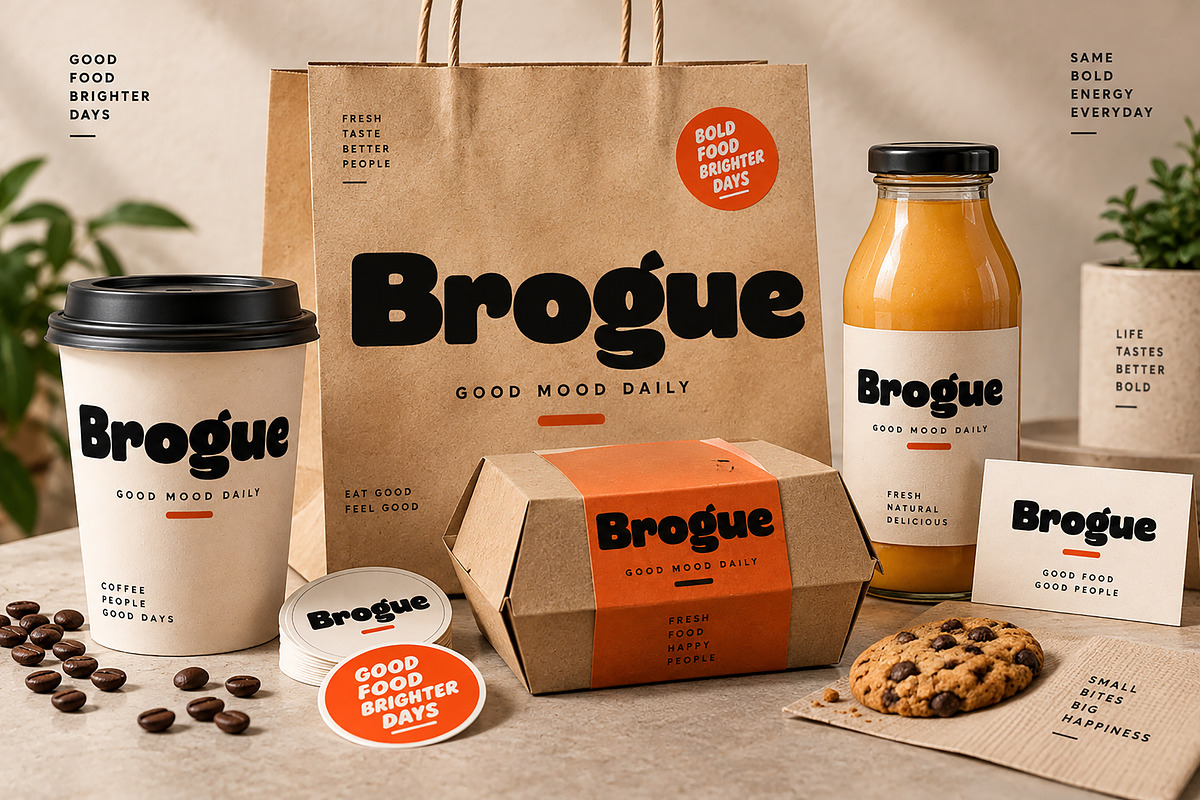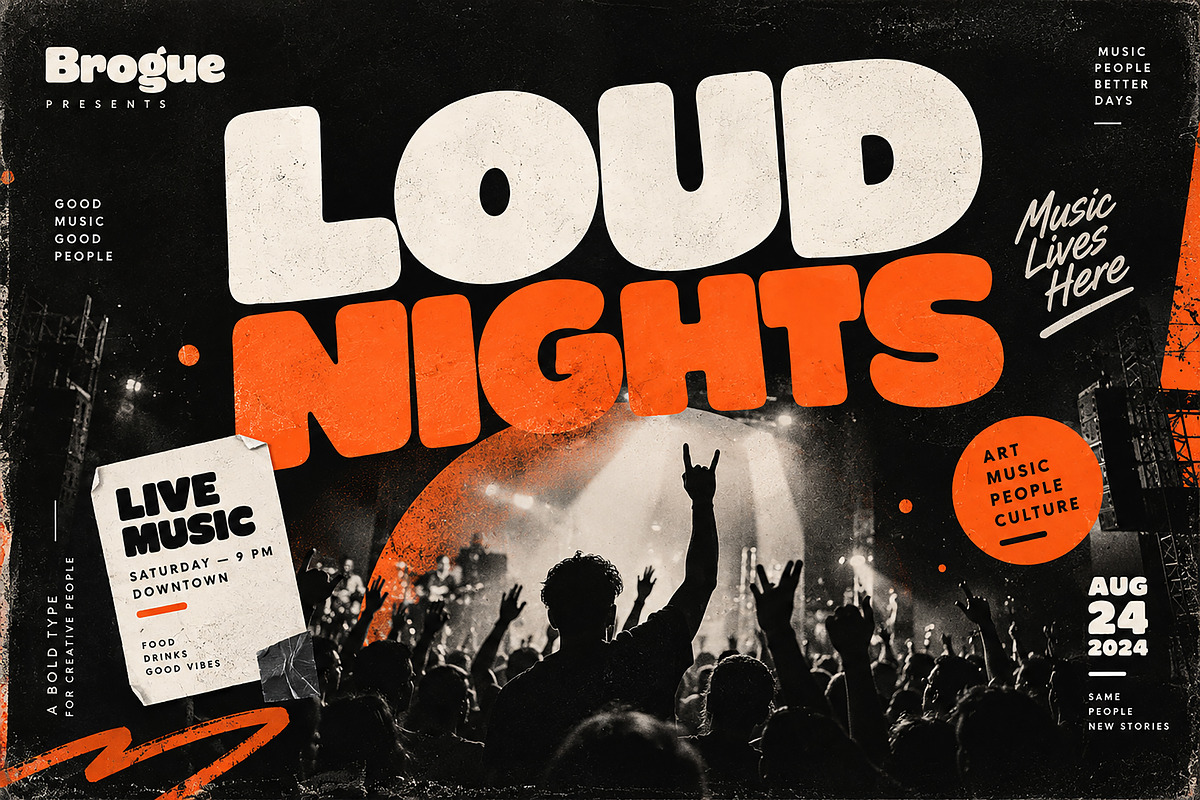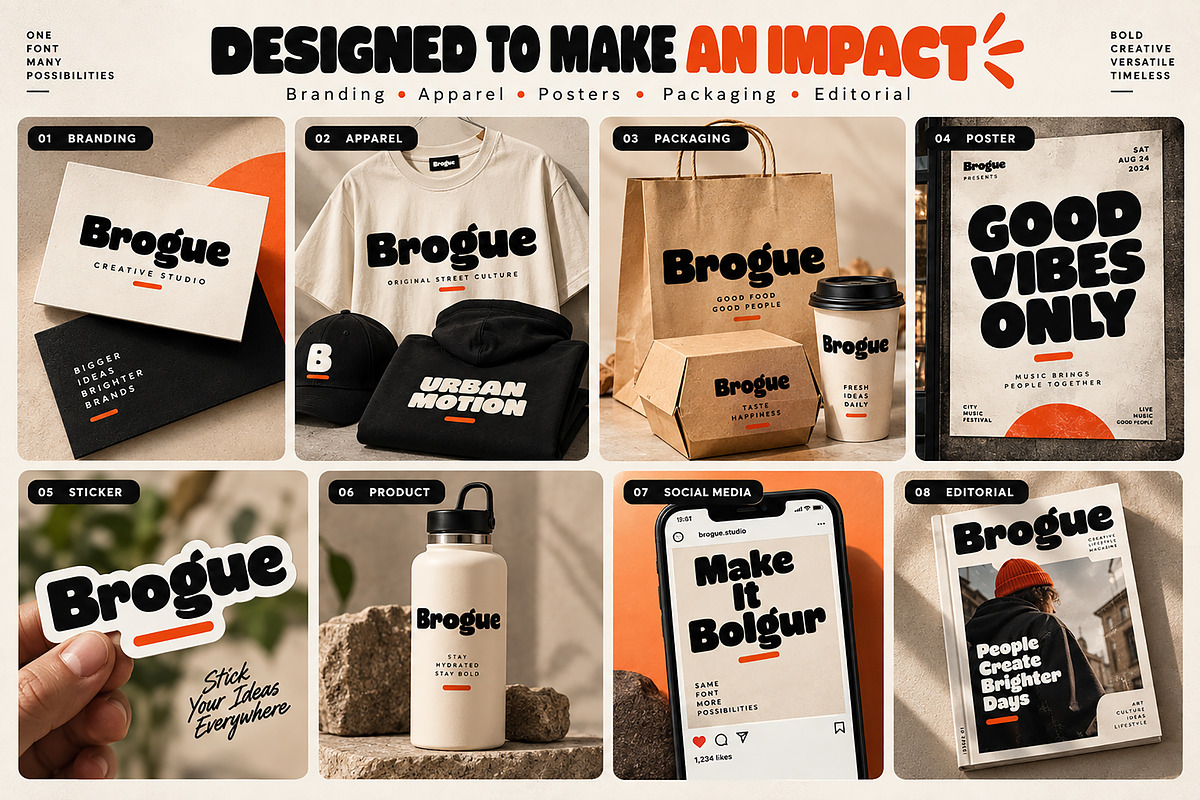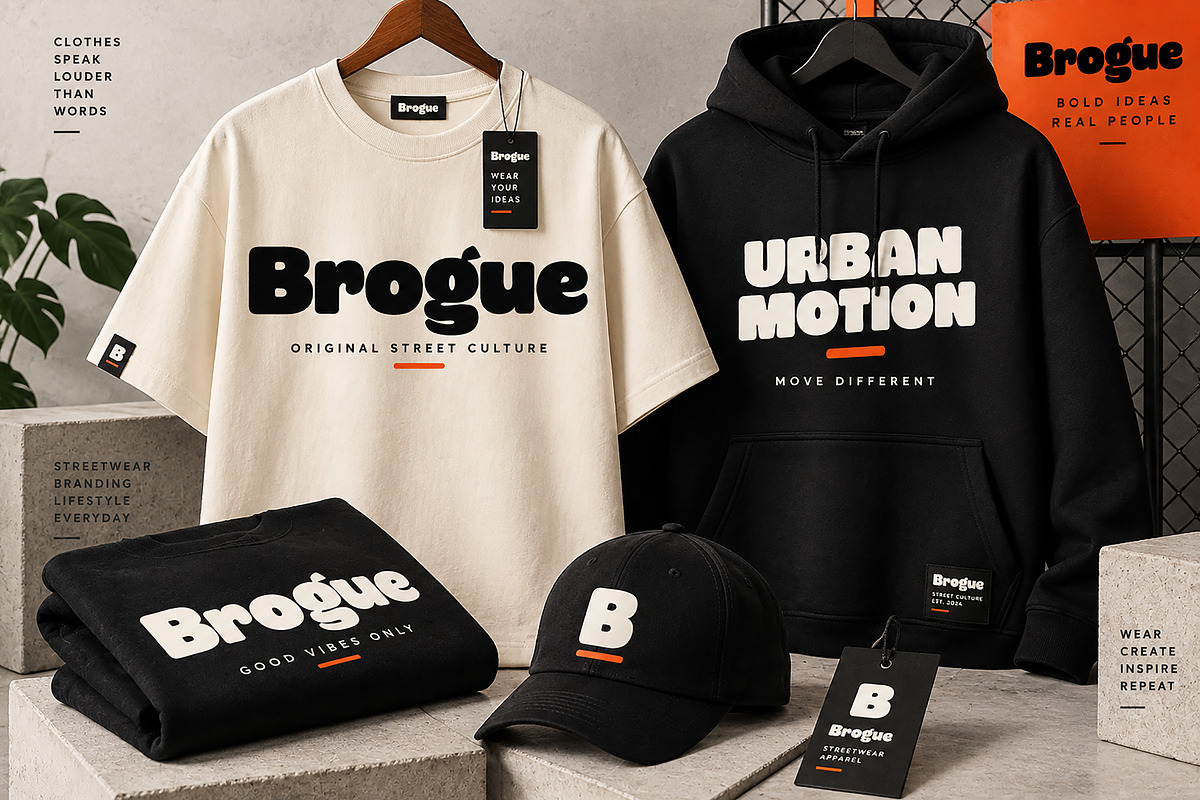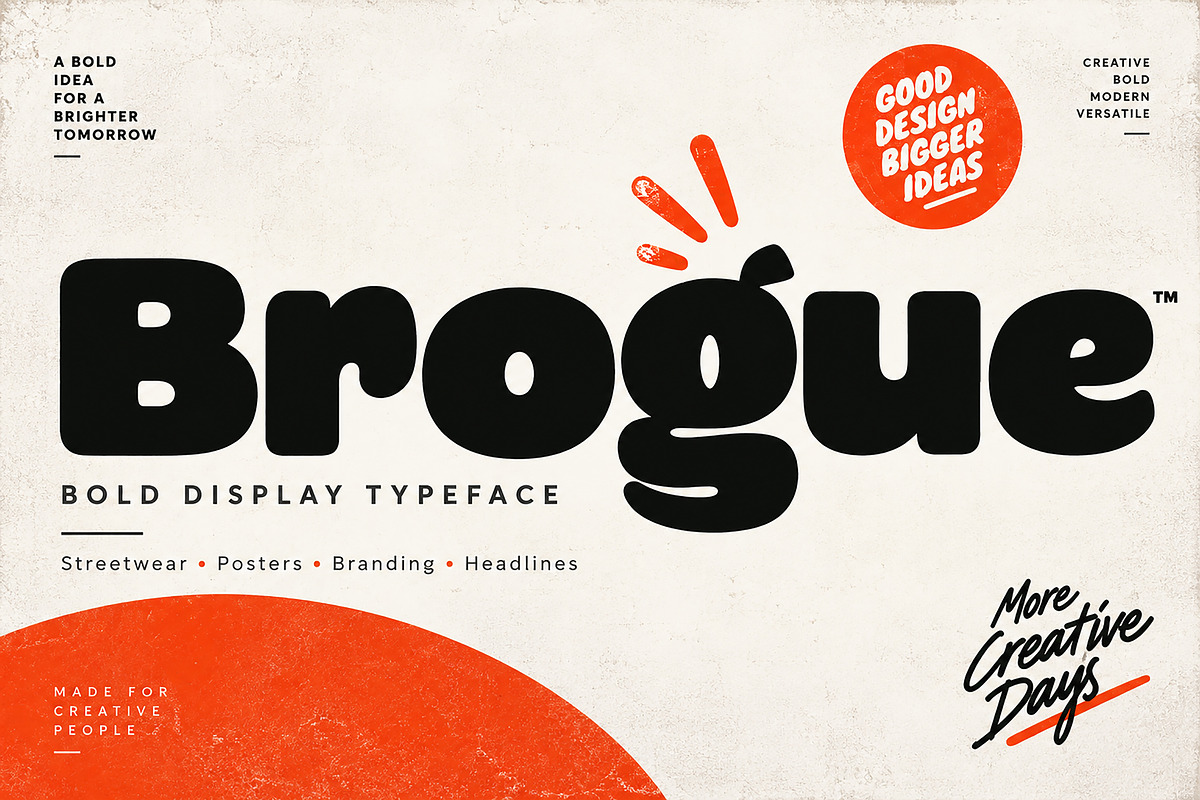
Brogue _ Bold • Chunky • Display
Brogue is a bold, chunky display typeface designed to make your typography instantly stand out. With its heavy rounded forms, playful curves, and distinctive character, Brogue brings a strong contemporary personality to headlines, branding, posters, apparel, packaging, and creative advertising.
Its eye-catching display style works especially well for projects that need a confident, energetic, and memorable visual identity. Use Brogue for streetwear graphics, logo concepts, music posters, event artwork, product packaging, stickers, social media designs, editorial covers, merchandise, and promotional campaigns.
Brogue is designed to be highly impactful at large sizes, making it an excellent choice for bold headlines and attention-grabbing typography.
Logo & Brand Identity
Streetwear & Apparel
T-Shirts & Hoodies
Posters & Flyers
Music & Event Graphics
Product Labels
Stickers & Merchandise
Editorial Design
Advertising & Promotional Materials
Creative Headlines
Album & Cover Artwork
Style: Bold • Chunky • Rounded • Playful • Display
Why Brogue?
Brogue combines a heavy visual presence with soft, rounded letterforms, giving your designs a distinctive balance of boldness and playful personality. It is particularly suited to designers looking for a display font that can become the focal point of a composition.
Make your headlines bigger. Make your branding bolder. Make your designs memorable with Brogue.